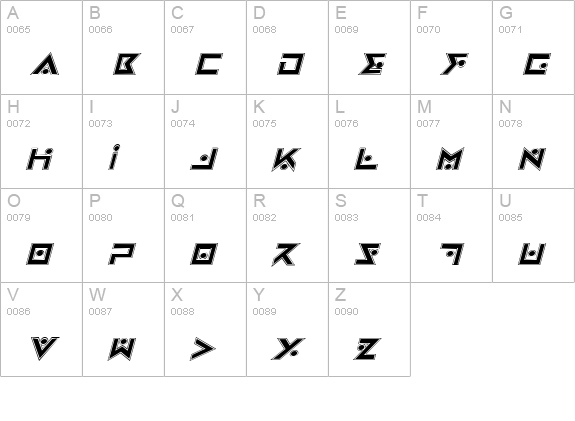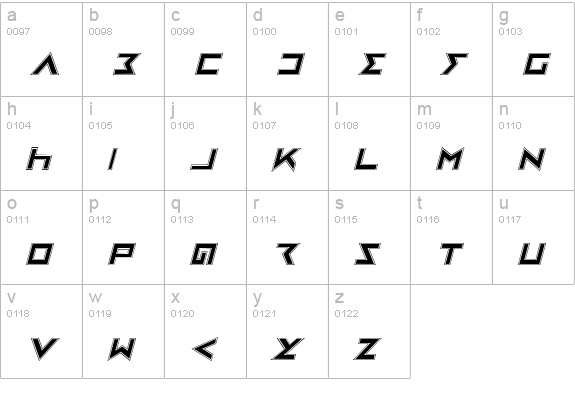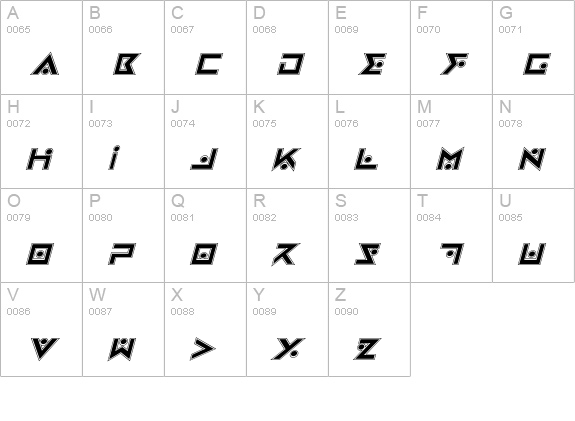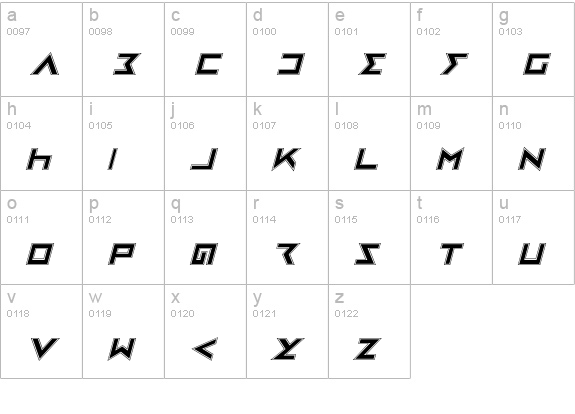
Iron Cobra Pro Italic is a distinctive, italic variant in the Iron typeface family \xE2\x80\x94 well suited to design and typography projects.
Iron Cobra Pro Italic is a sleek and modern font that exudes sophistication and elegance. Its italic styling adds a touch of flair and creativity to any design project. The smooth curves and sharp angles of this font give it a dynamic and eye-catching appearance. What sets Iron Cobra Pro Italic apart is that it is available for free download at FontsMarket.com. This means that you can easily access and use this stunning font in your projects without any cost. Whether you are working on a graphic design, website, or branding project, Iron Cobra Pro Italic is a versatile choice that will elevate your work to the next level. With its bold and distinctive look, Iron Cobra Pro Italic is perfect for creating logos, headlines, and other design elements that demand attention. Its unique style and versatility make it a must-have font for any designer looking to make a statement. Download Iron Cobra Pro Italic for free today and add a touch of elegance to your designs.